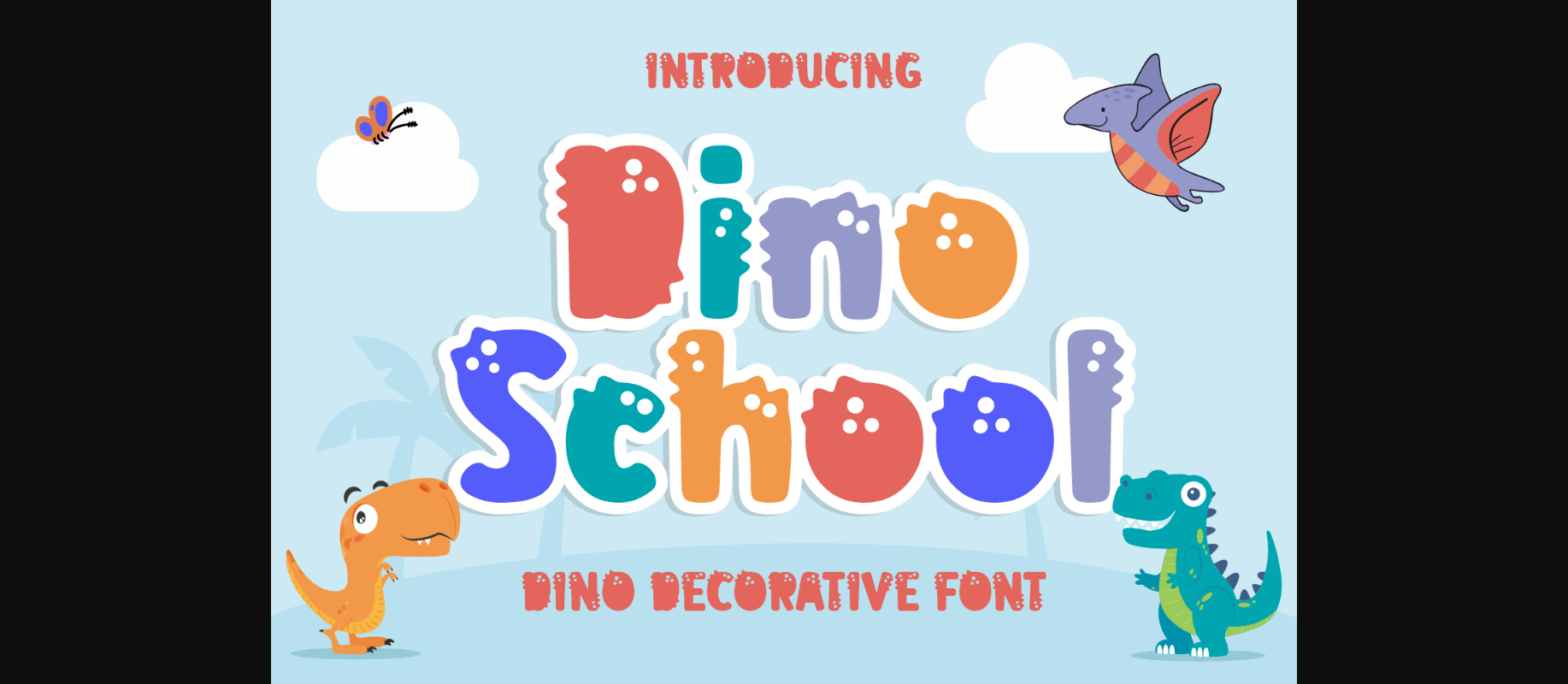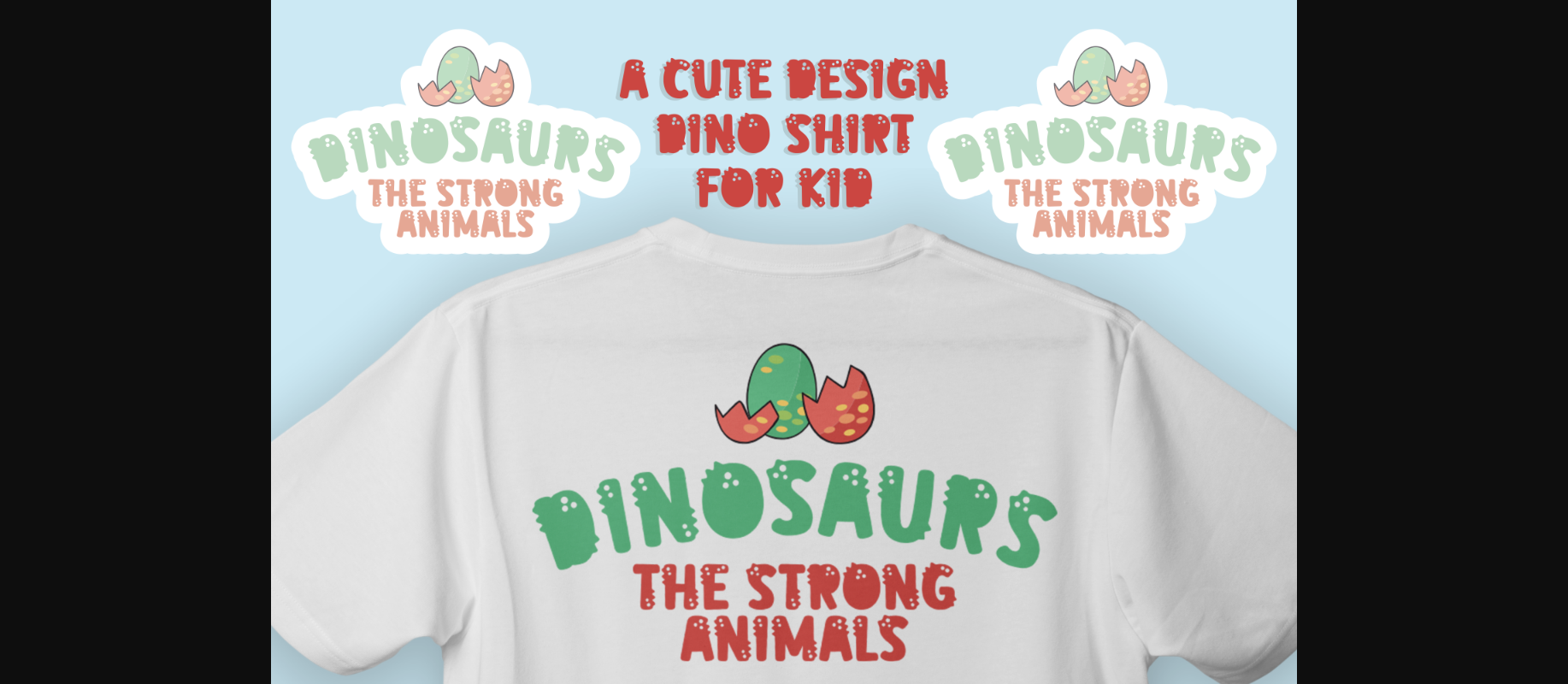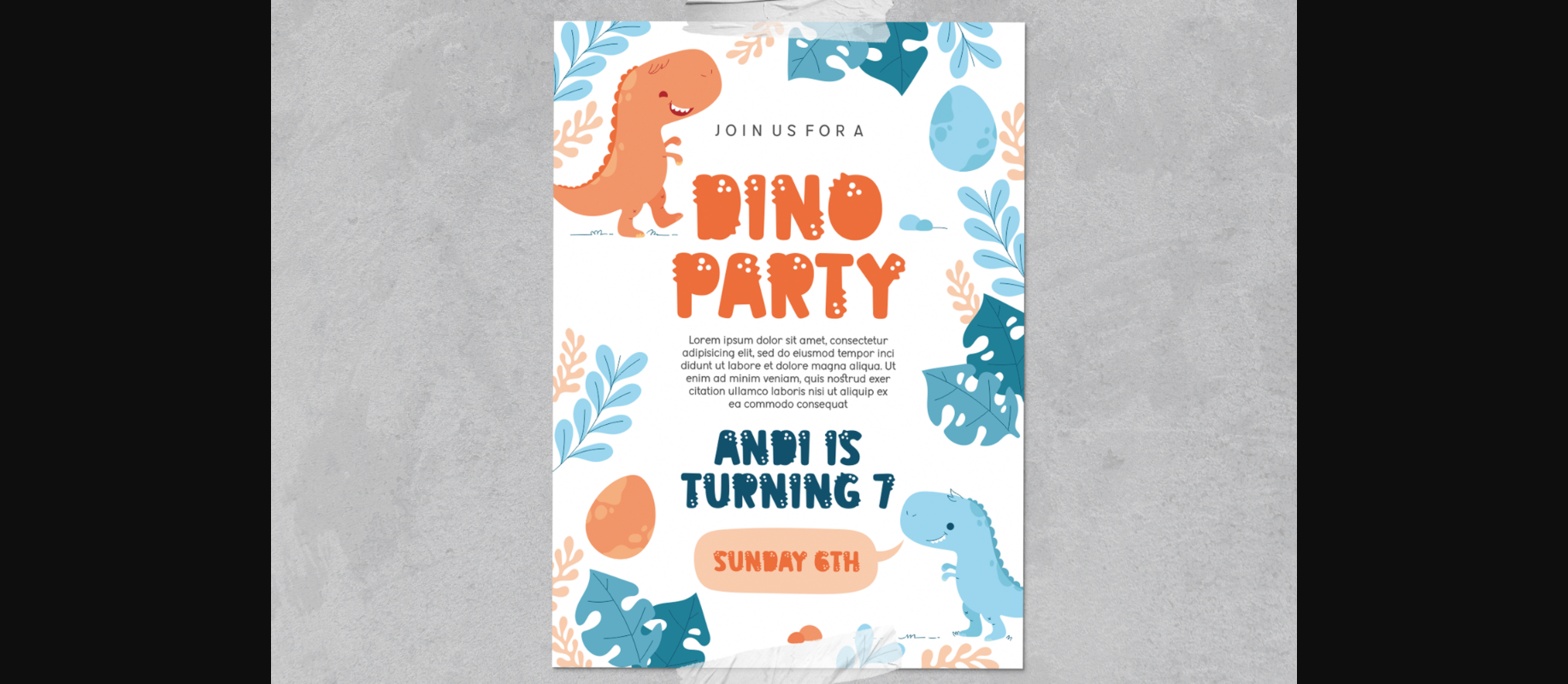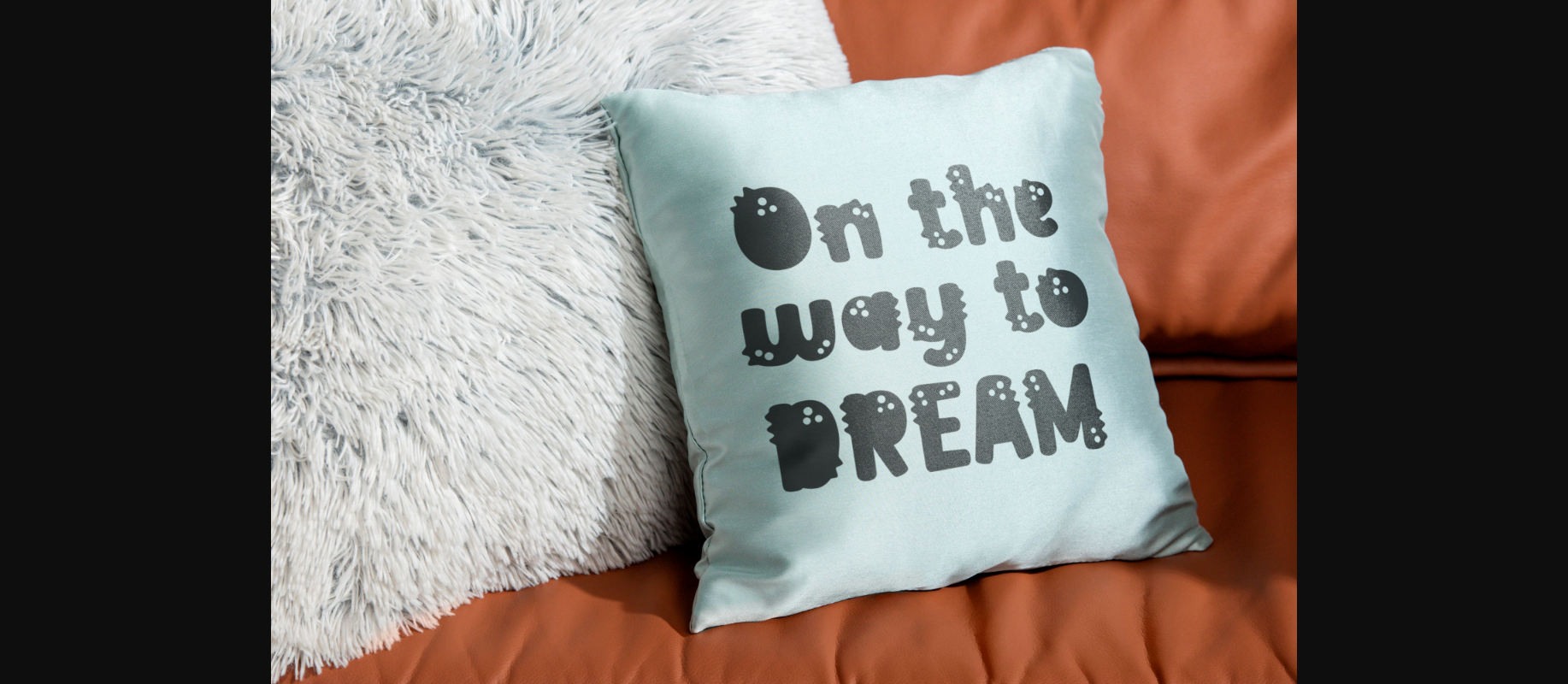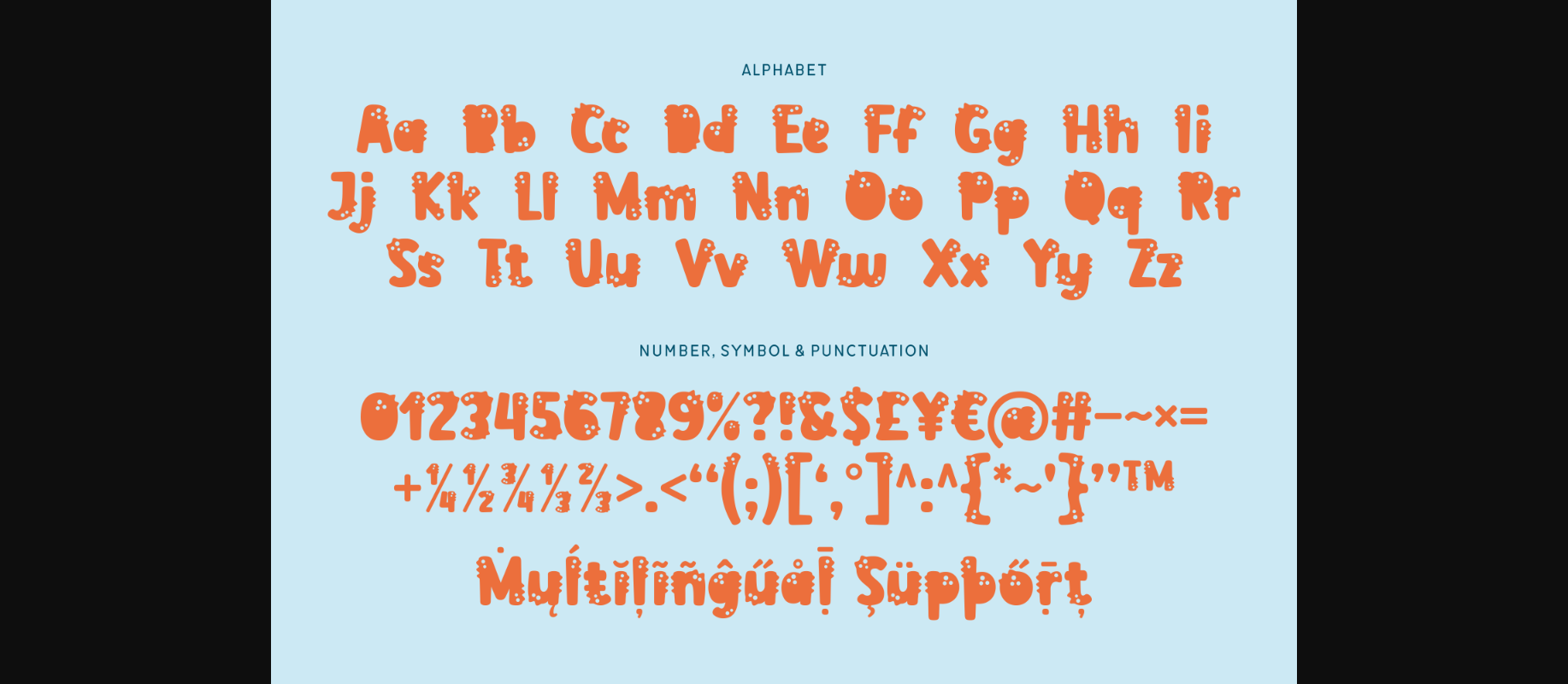
About Dino School Font
Dino School is a unique decorative font with a dinosaur motif. This cute typeface is perfect for all dinosaur lovers! Use it to add charm and character to t-shirts, party invitations, cards, baby onesies, and many more.